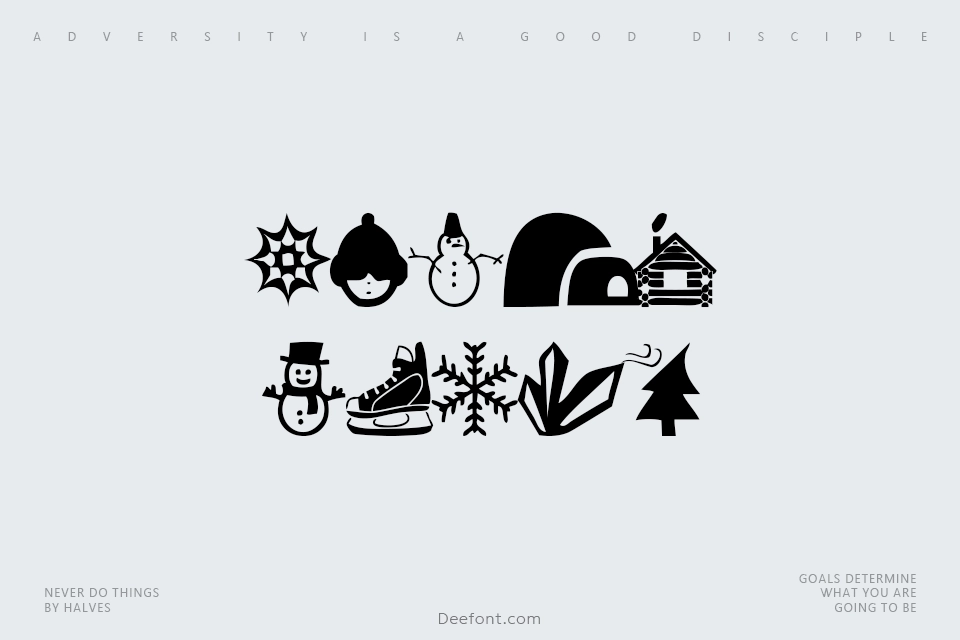
Winter Icons Font
Winter Icons is a free dingbats font featuring 236 winter-themed icons and symbols designed by Woodcutter. Perfect for seasonal projects, greeting cards, and festive designs, this typeface transforms keyboard characters into decorative snowflakes, holiday icons, and winter imagery. Ideal for graphic designers seeking authentic seasonal embellishments without complex software requirements, the font has garnered over 181,000 downloads for its versatility and charming winter aesthetic.